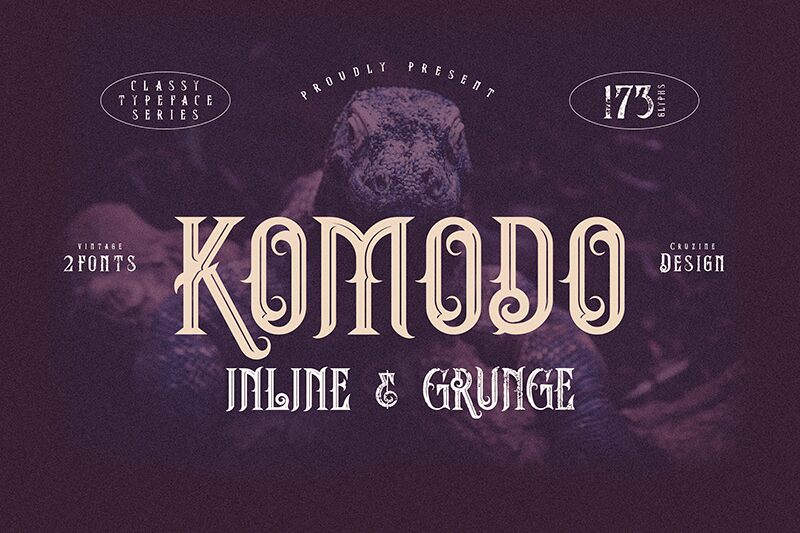
Introducing Komodo Inline, a display font designed by Cruzine with a retro twist. The condensed and light style of this font makes it perfect for creative projects that need a touch of nostalgia, such as vintage posters or 80s-inspired graphics. With its unique inline design, Komodo Inline is also great for eye-catching headlines and titles in print or digital media. Whether you're designing for a music festival or a skateboarding brand, this font will add a distinctive edge to your work. Download Komodo Inline now and start creating bold designs that stand out from the crowd!